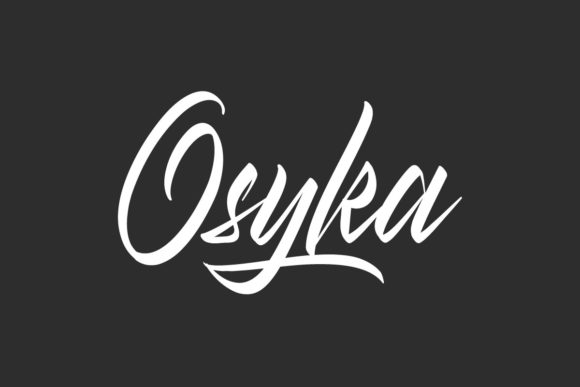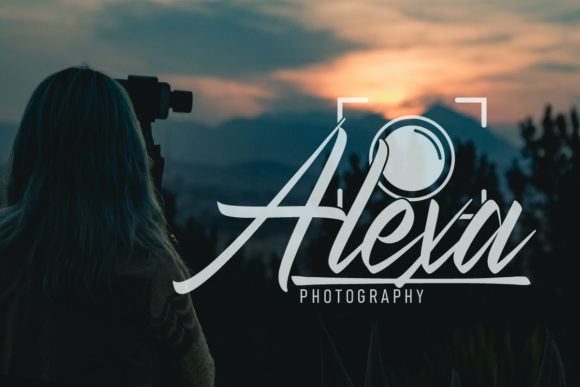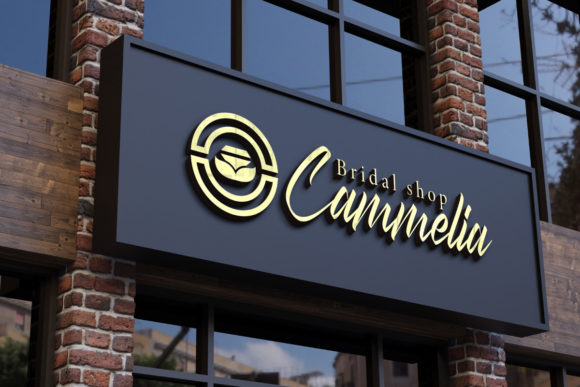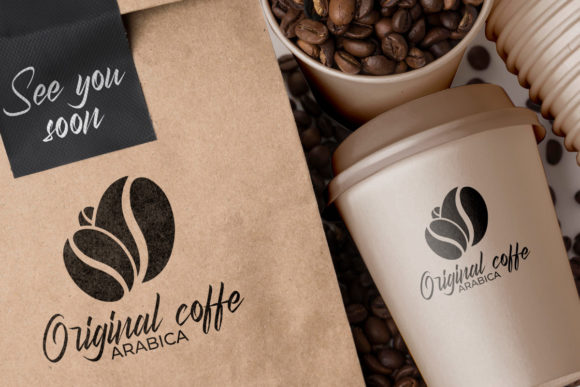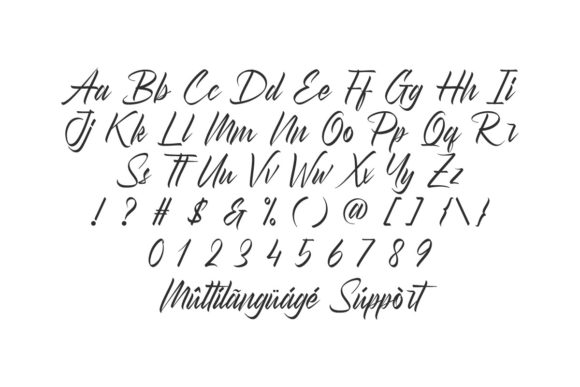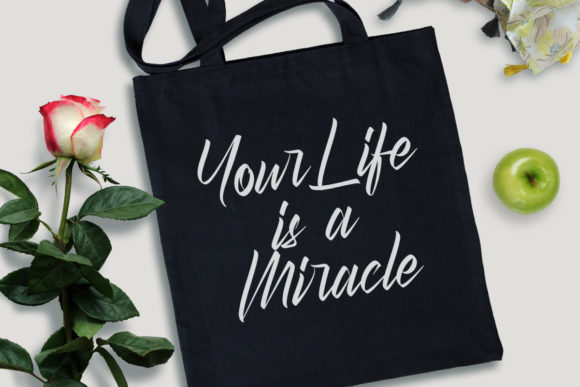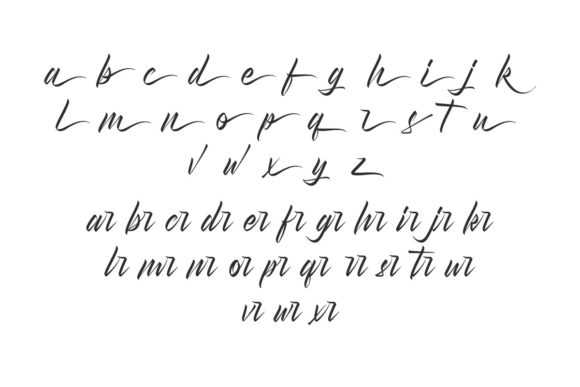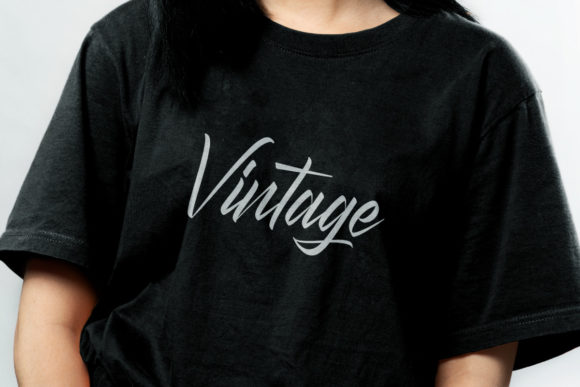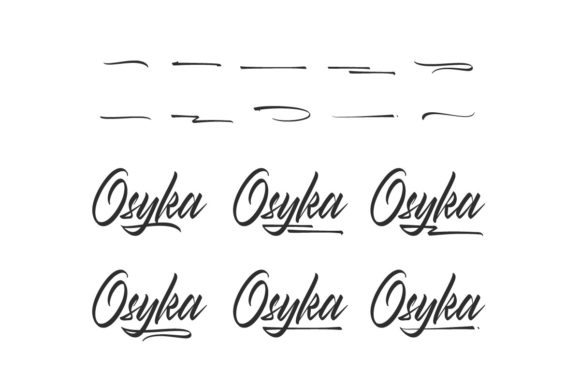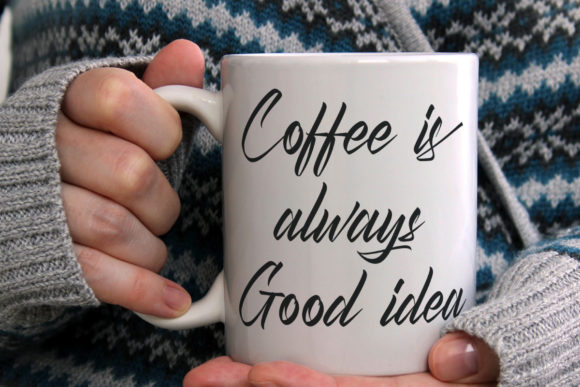
Osyka Font
About Osyka Font
“Osyka” is an exceptional handwritten font that exudes elegance through its graceful and curvaceous lines. Designed to make your work stand out, this font is a versatile choice for a variety of applications. Whether you’re working on product packaging, branding projects, magazine covers, social media graphics, wedding materials, or any project where expressing words above the background is crucial, “Osyka” is crafted to meet these diverse design needs.
The font’s elegant and curvy lines contribute to its sophisticated appearance, making it a perfect fit for projects that demand a refined and stylish touch. The handwritten quality of “Osyka” adds a personal and authentic feel, creating a connection between the design and the viewer.
In product packaging, “Osyka” enhances the visual appeal of labels and tags, adding a touch of elegance that elevates the overall presentation. Its versatile nature ensures compatibility with a range of product types, making it suitable for various industries.
For branding projects, the font brings a unique and stylish identity to your visual elements. Whether used in logos, headers, or other branding materials, “Osyka” stands out as a font that seamlessly integrates with the overall brand image, leaving a memorable impression.
Magazine covers benefit from the font’s ability to convey sophistication and modernity. “Osyka” contributes to an eye-catching and stylish design, making it a valuable asset for creating captivating covers that attract readers.
On social media platforms, the font’s PUA encoding allows easy access to a plethora of glyphs and swashes, enhancing the customization options. This makes “Osyka” a versatile choice for creating engaging and shareable social media graphics.
In wedding materials, the font’s elegant lines bring a romantic and timeless feel. From invitations to place cards, “Osyka” adds a touch of grace that complements the sentimental nature of weddings.
In summary, “Osyka” is not just a font; it’s a design asset crafted to meet the demands of diverse projects. Its elegant and curvy lines, combined with PUA encoding for accessibility, make it a superb choice for those seeking a handwritten font that effortlessly stands out in various design contexts.